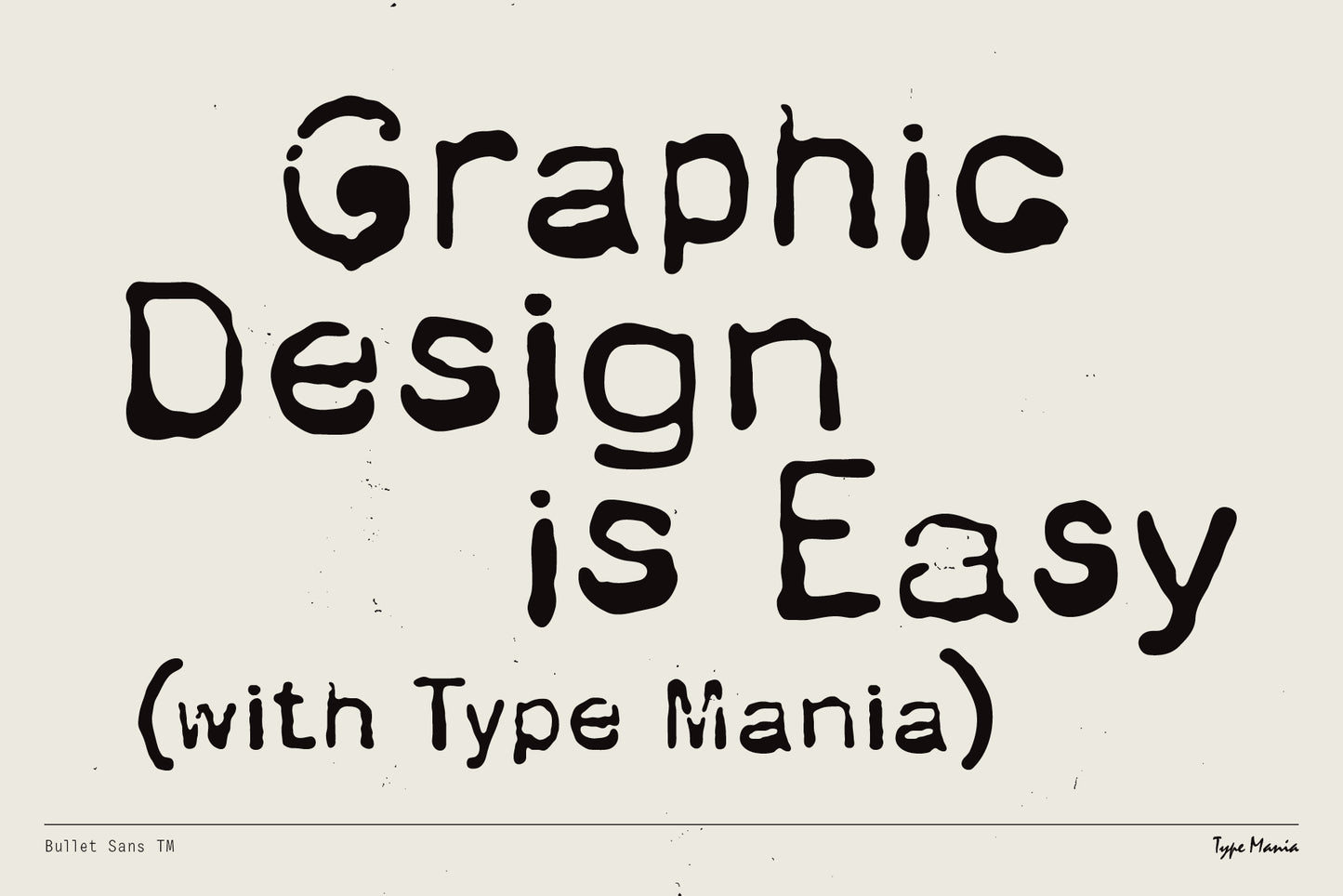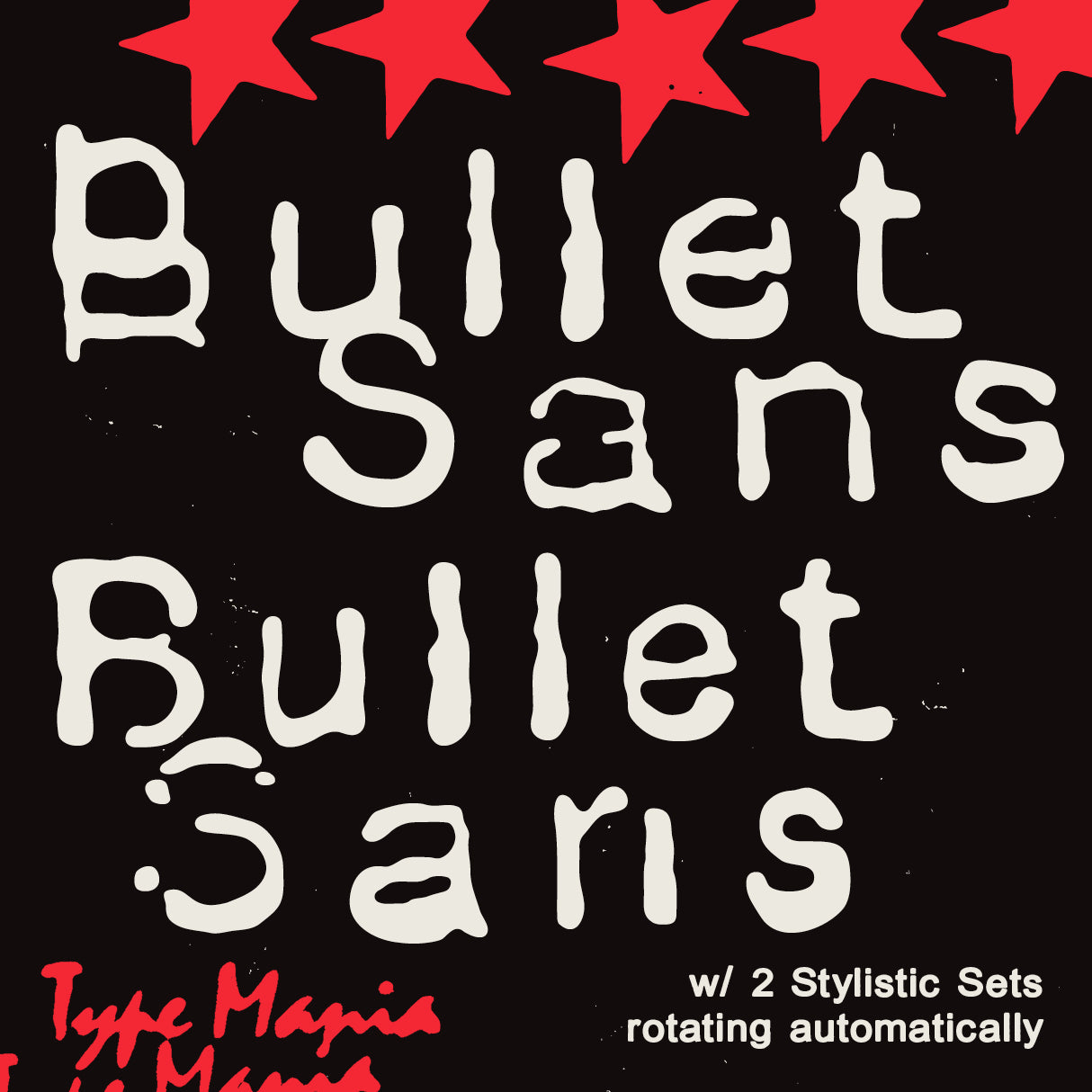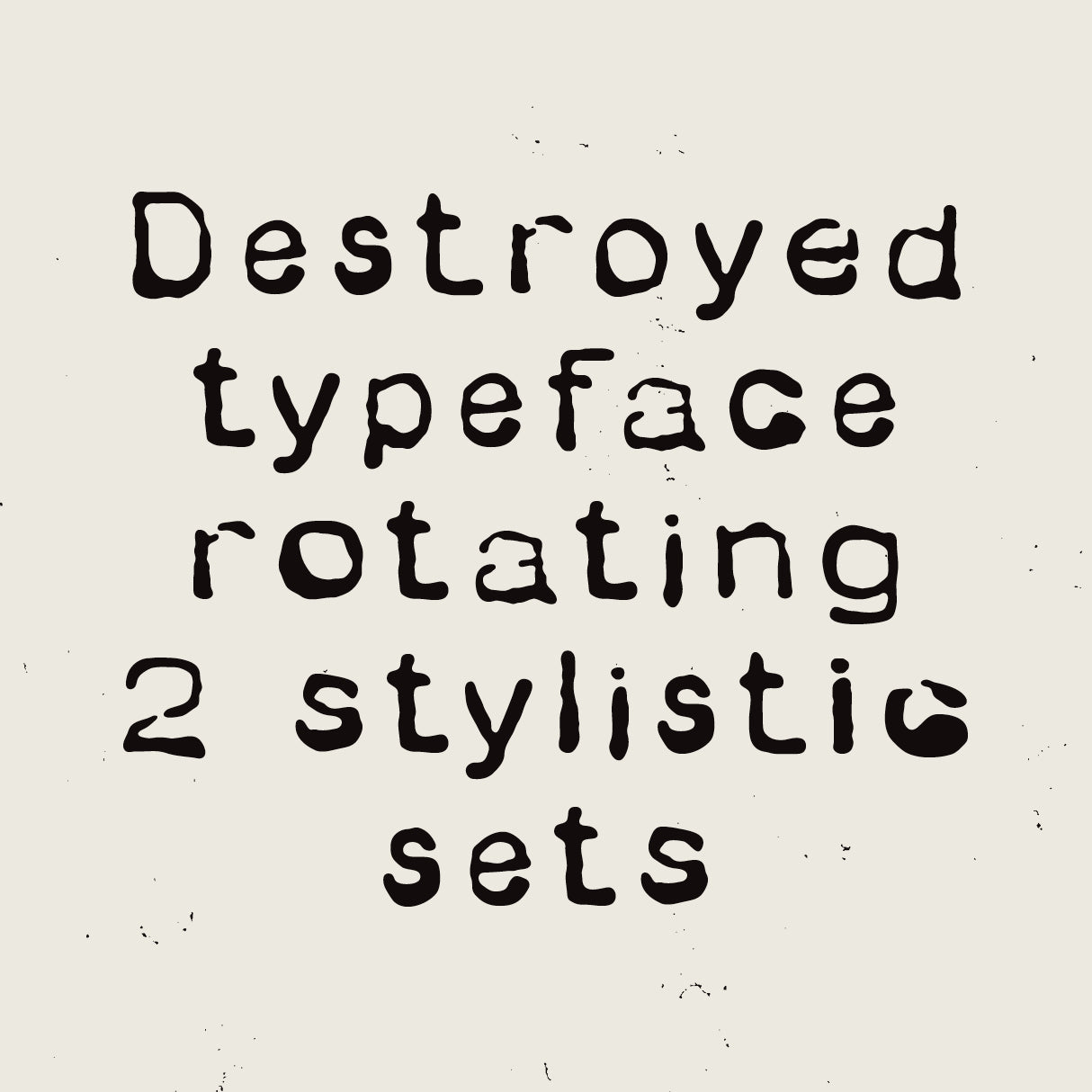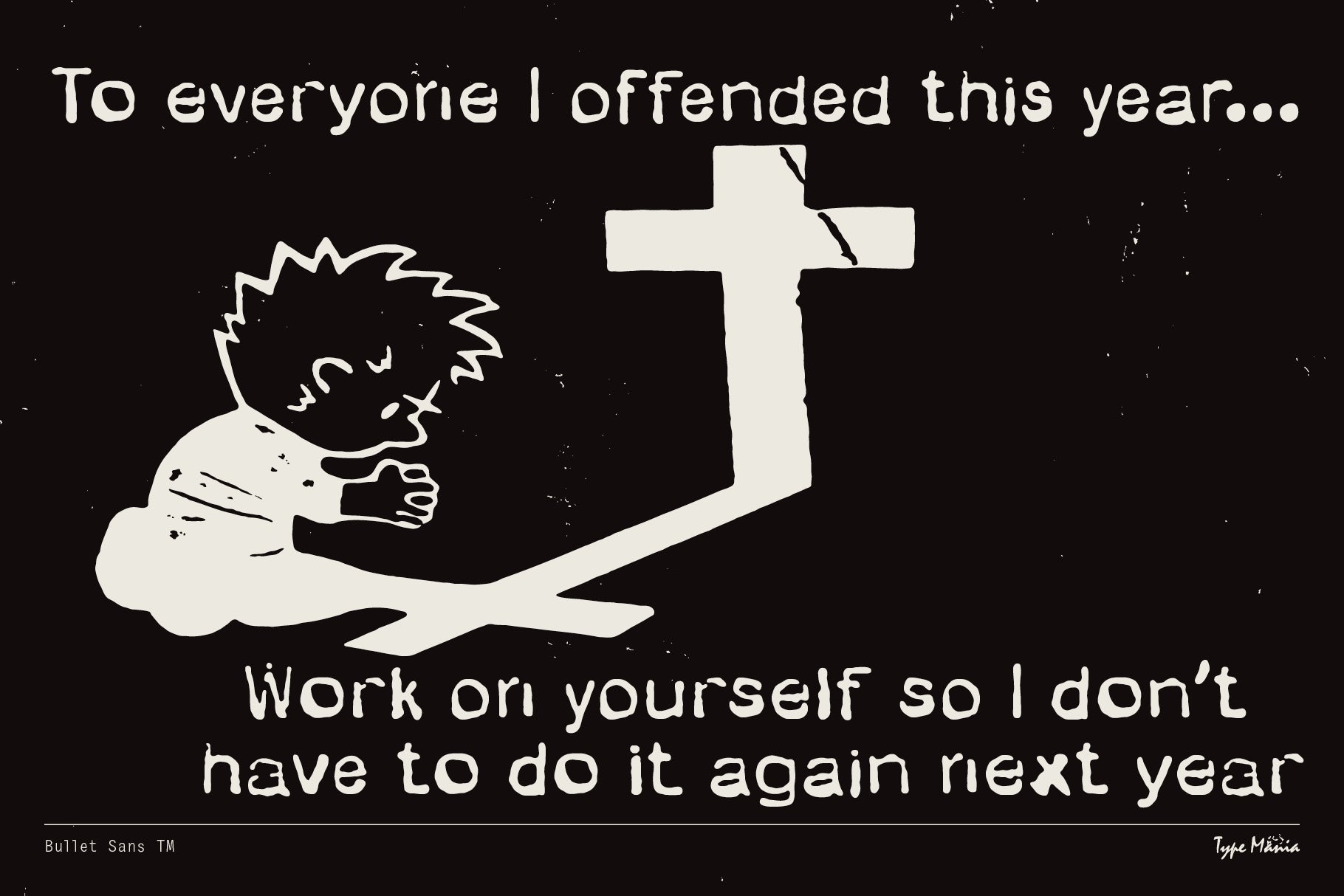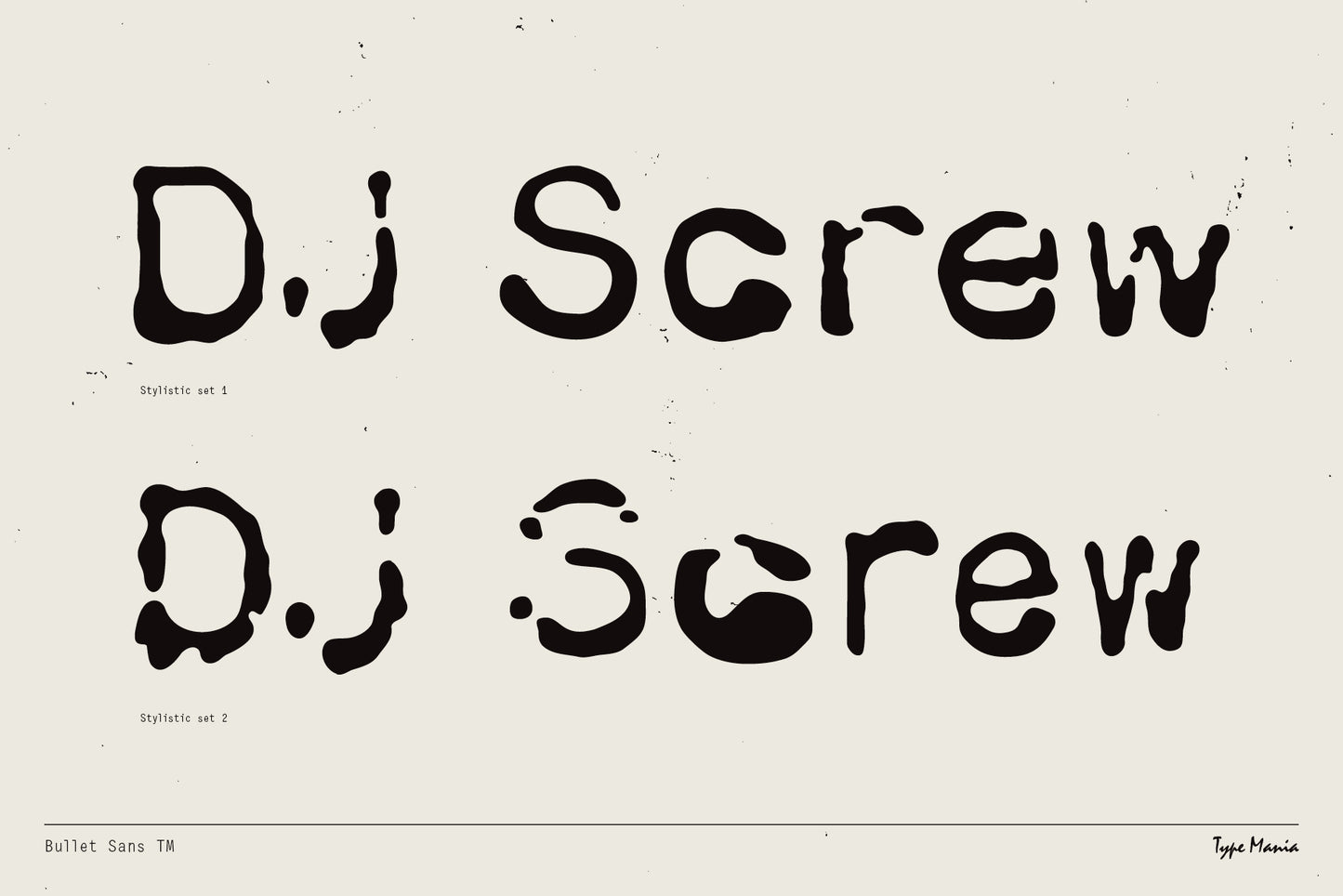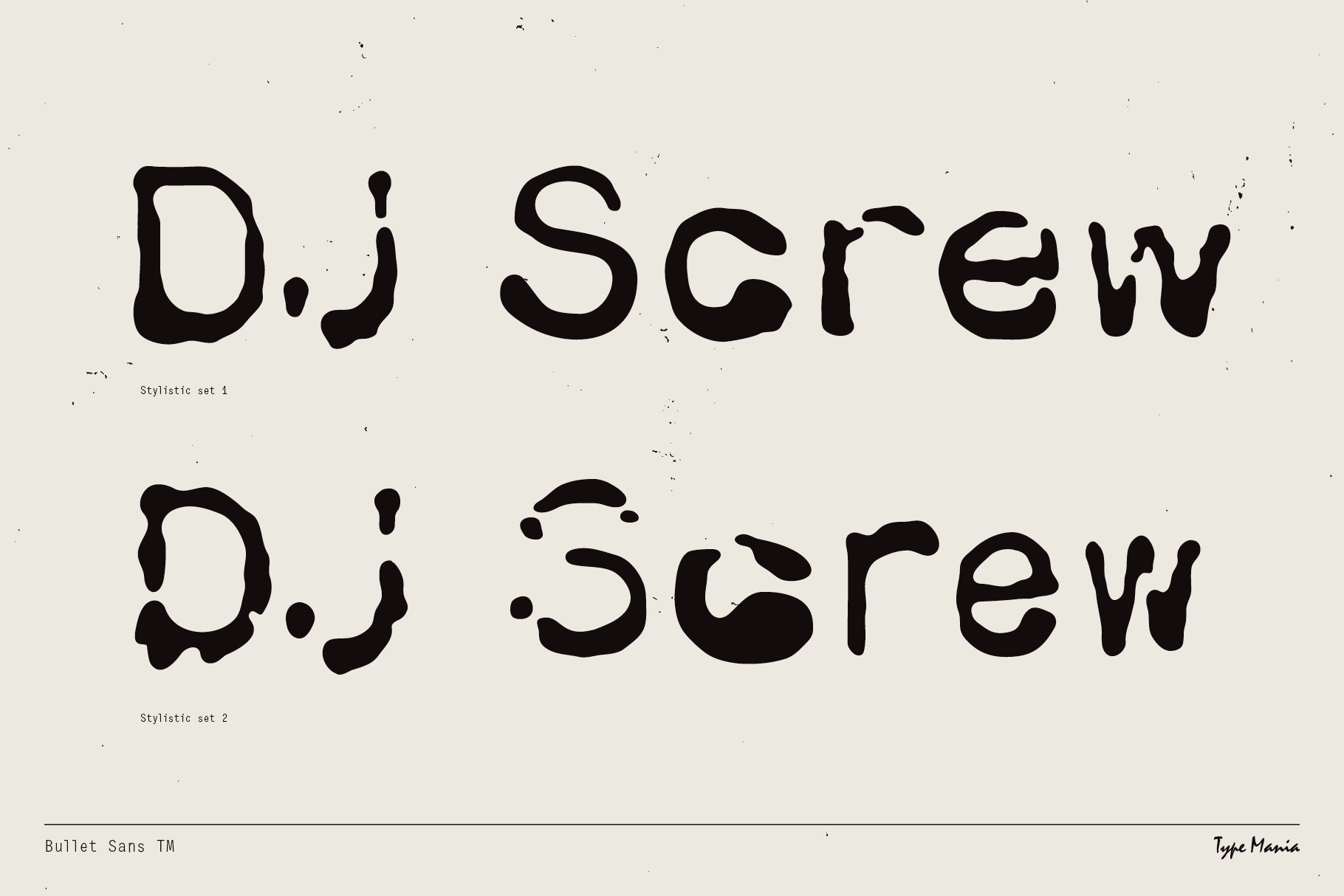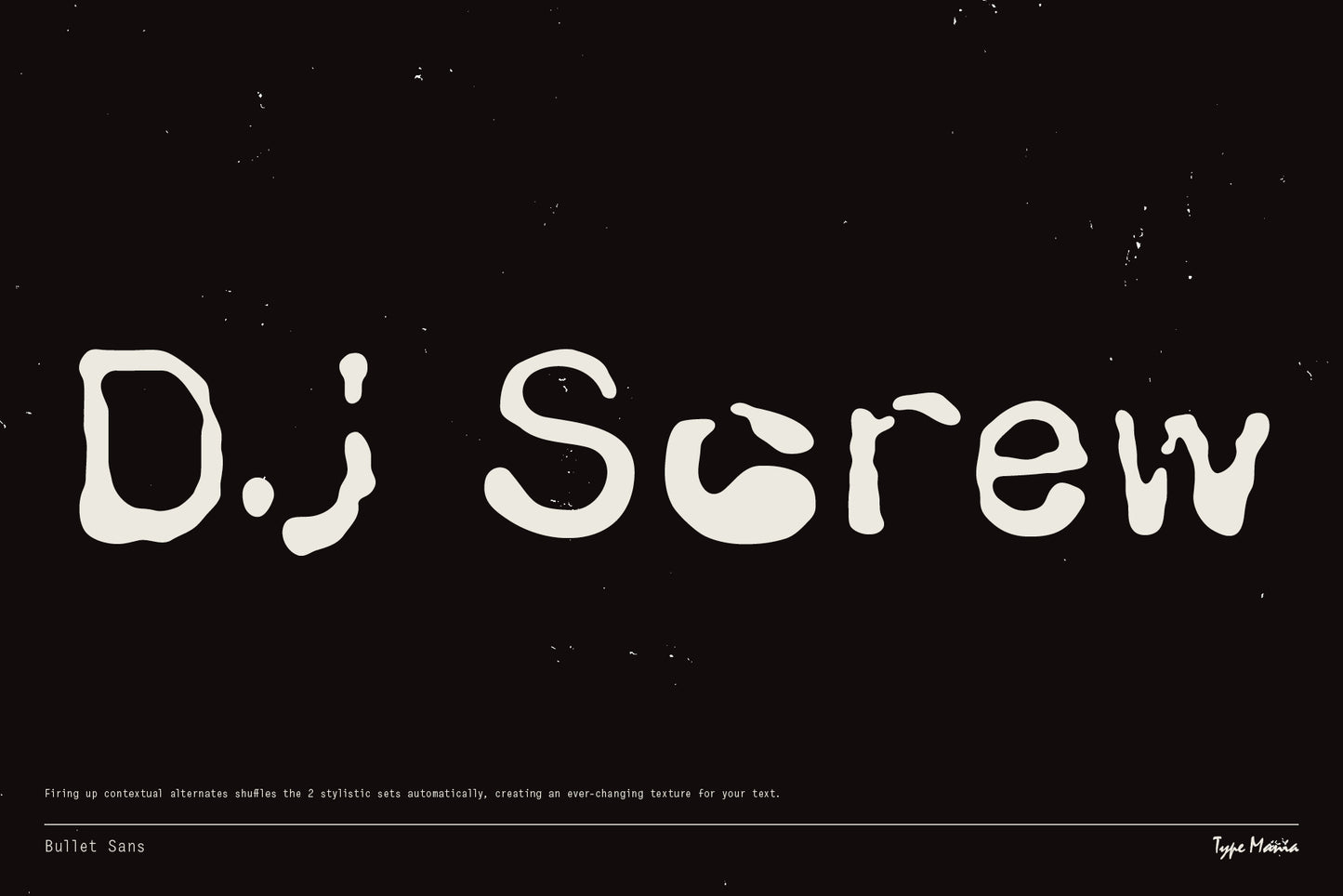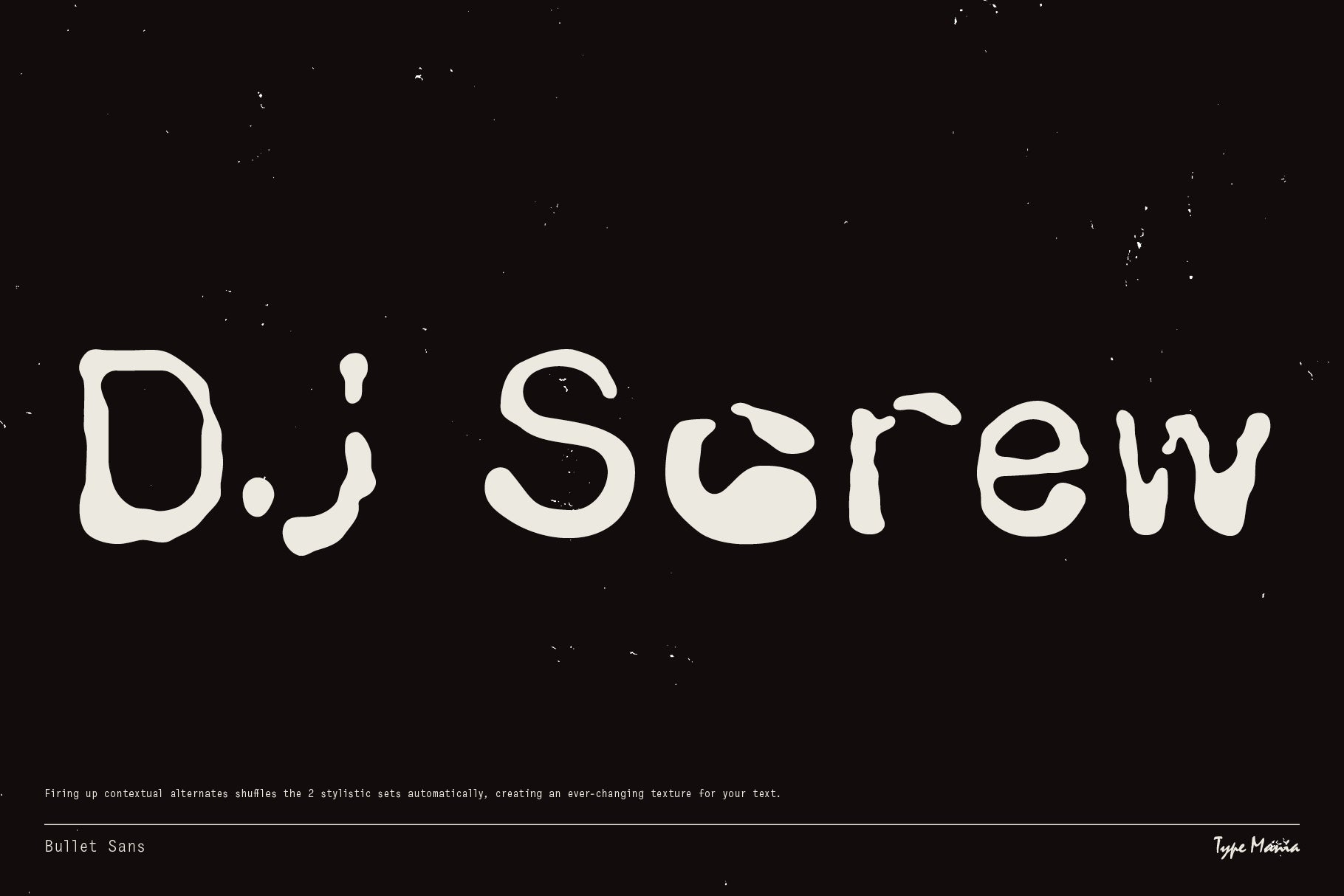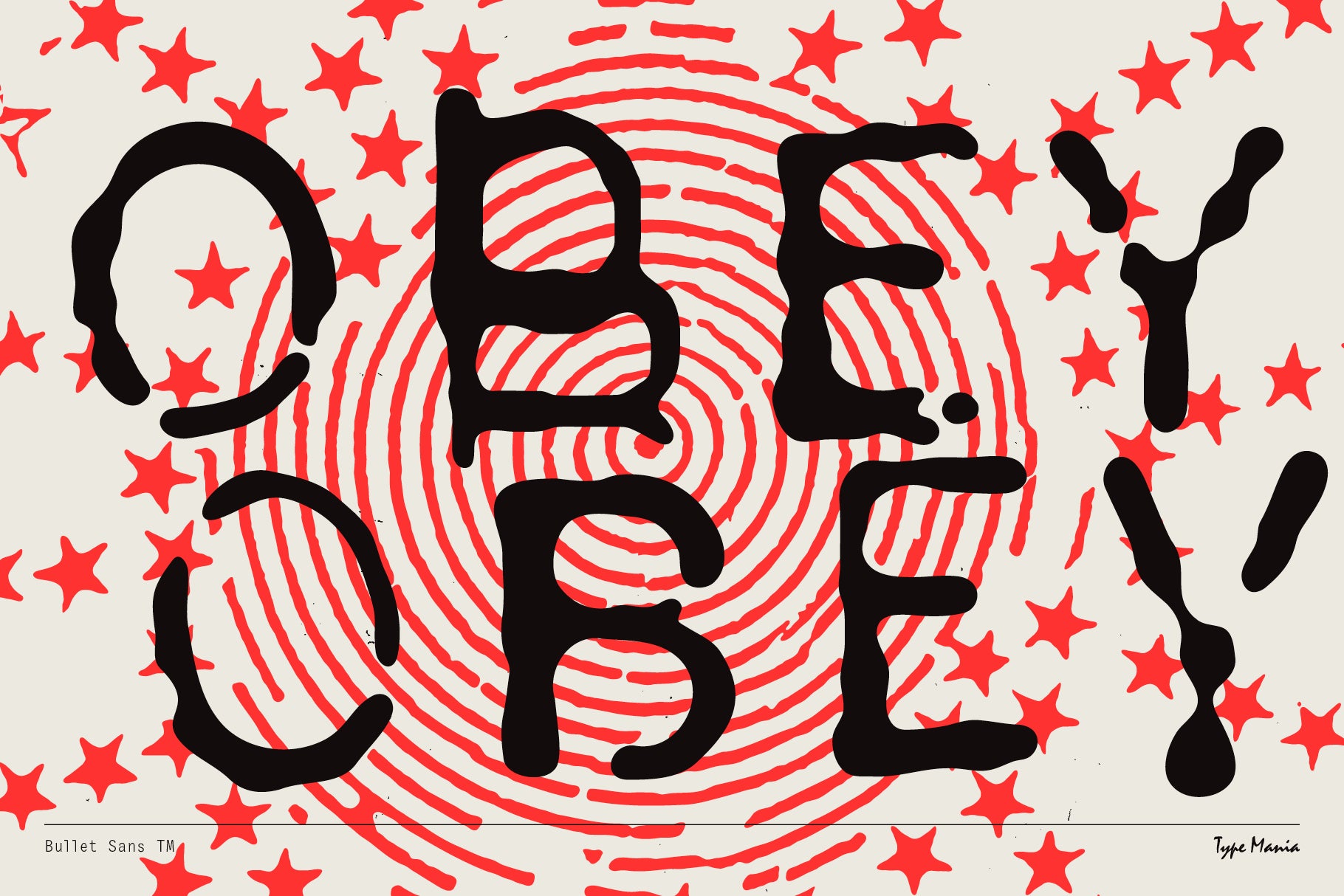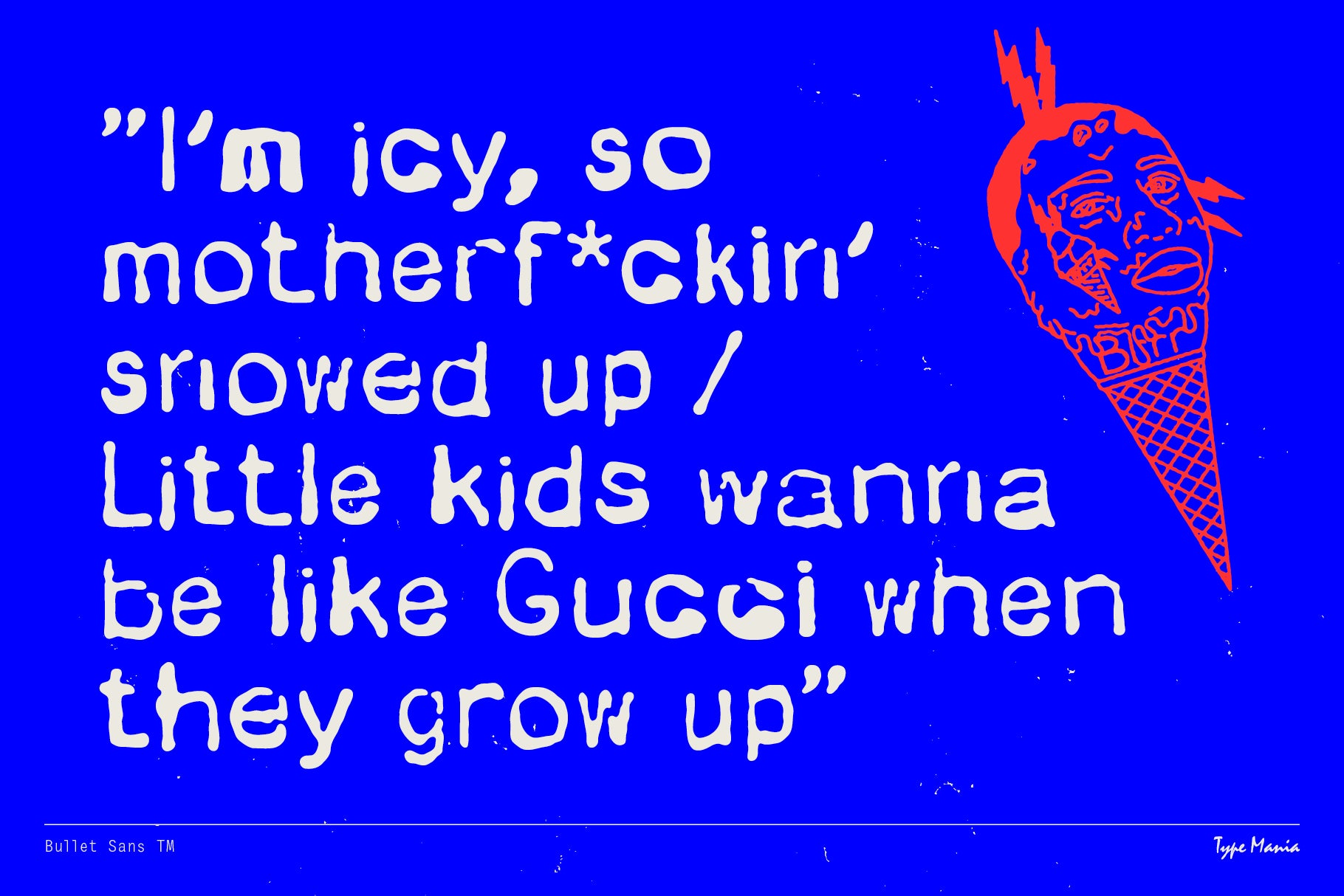
Bullet Sans TM
Bullet Sans TM. A rough, irregular typeface with two stylistic sets that rotate automatically. Letters alternate as you type, giving the text a loose rhythm w/out sacrificing readability. LFG 🚀
- 2 stylistic sets
- The font is programmed to automatically shift between the stylistic sets